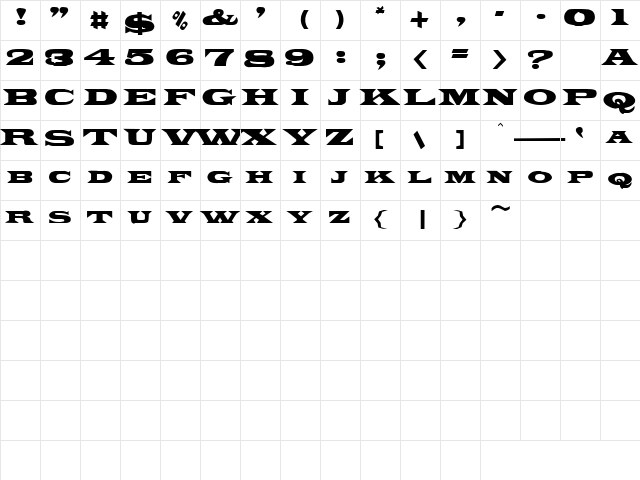
Genie 6 Regular Font Preview
Genie 6 Regular
Design Context for Genie 6 Typeface
Genie 6 is a composed and adaptable typeface that performs quietly and consistently across a wide range of design contexts.